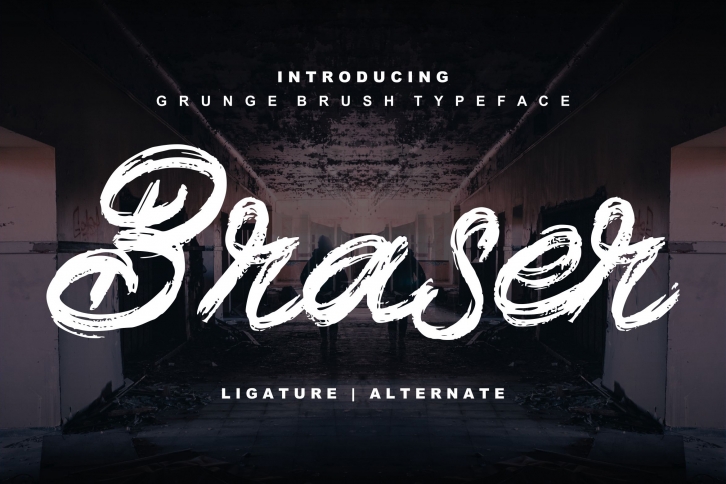
Braser is a trendy and unique font with an authentic style. It was designed by Vunira and it's a great choice for creative people who need such a font. It was released on July 2, 2019 and the file size is 12.56 MB. Braser will add an organic vibe to any design idea!